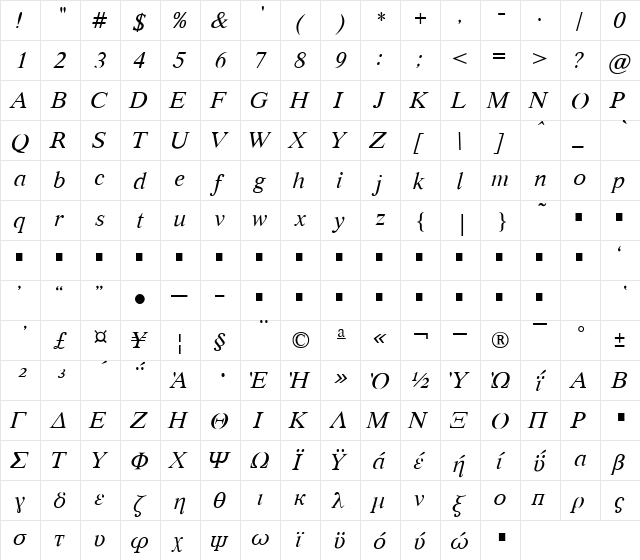
AWRomanGk Italic
Design Context for AWRomanGk Typeface
AWRomanGk takes a measured approach to typography — its balanced proportions and neutral character make it a reliable workhorse for both digital and print work. The dynamic lean of this cut emphasises speed and emphasis in any layout.
Pro Tip: Try AWRomanGk for annotation and caption copy alongside an upright companion — the contrast in angle creates a dynamic but ordered typographic system.